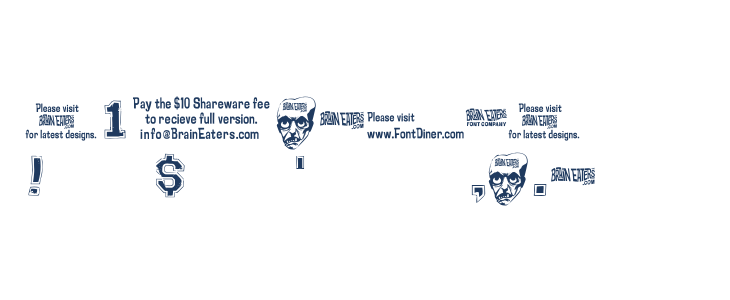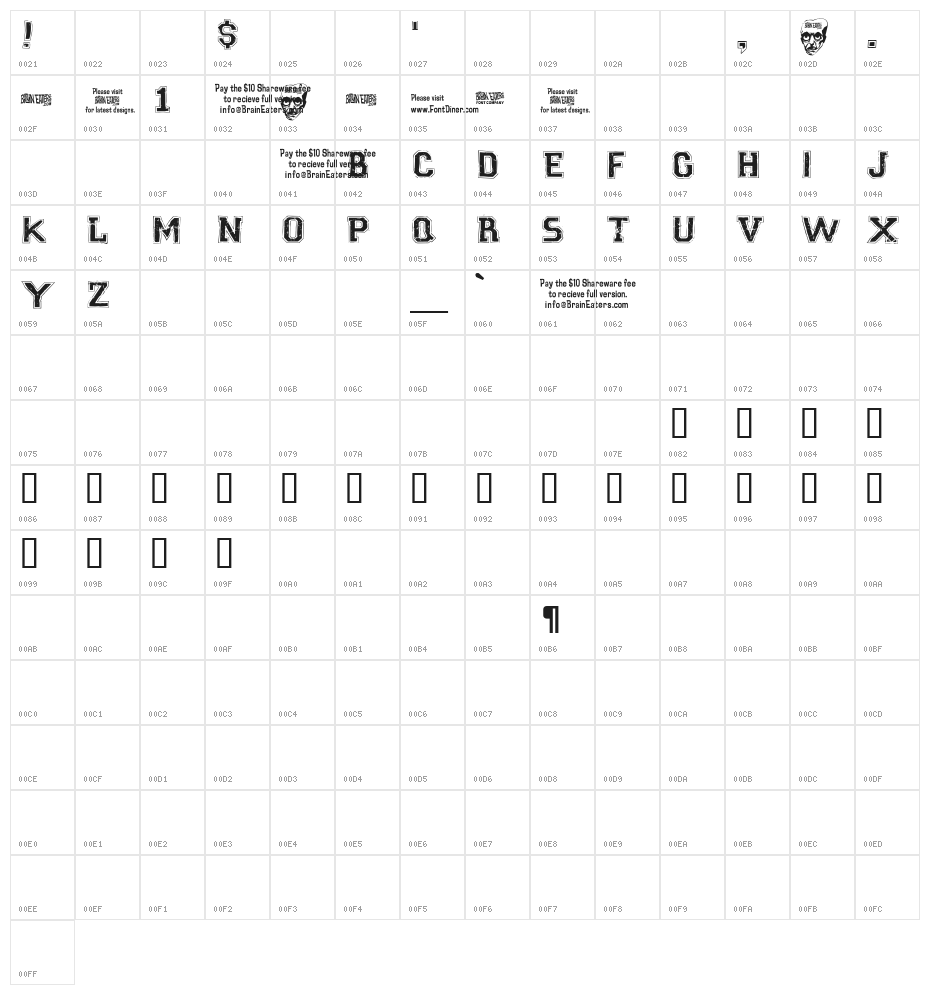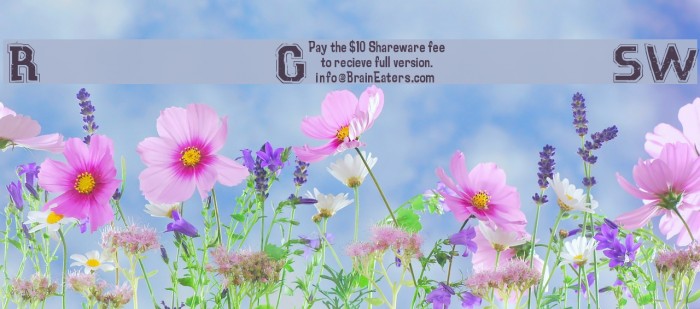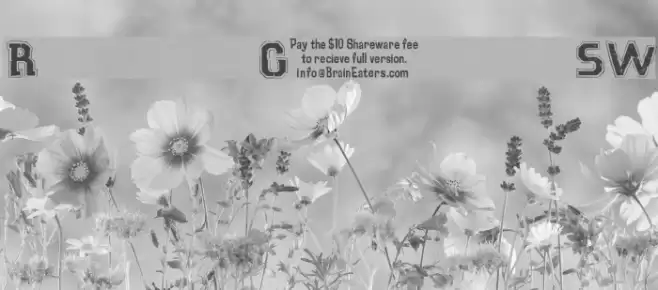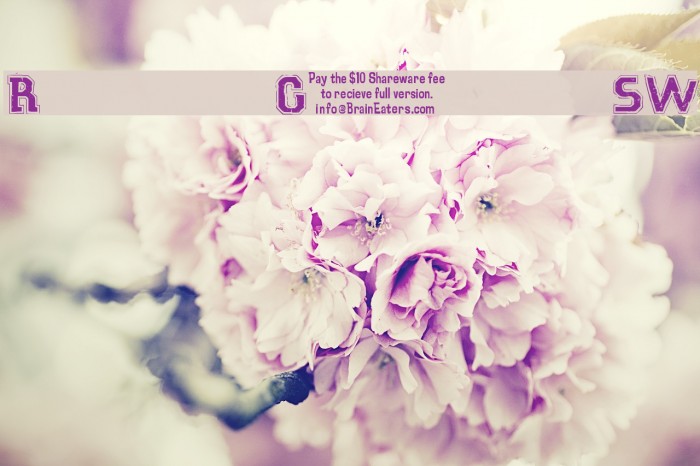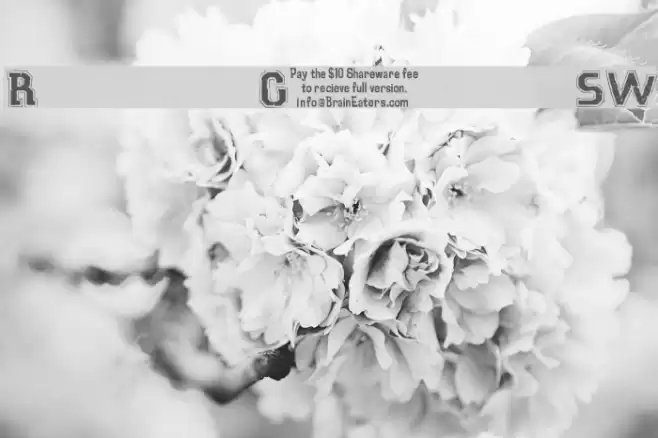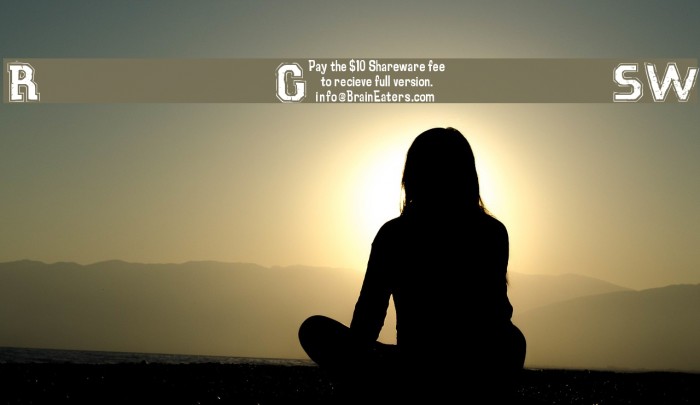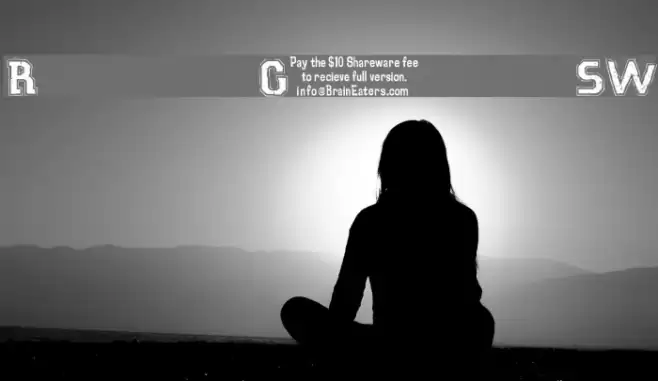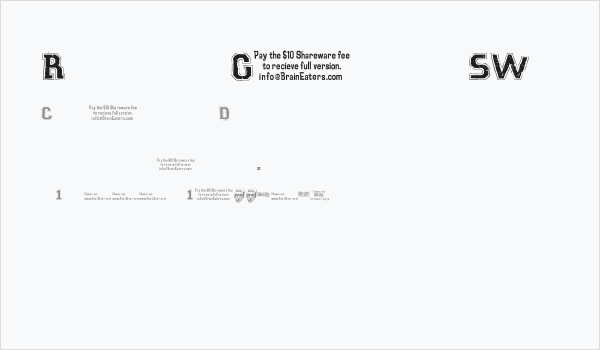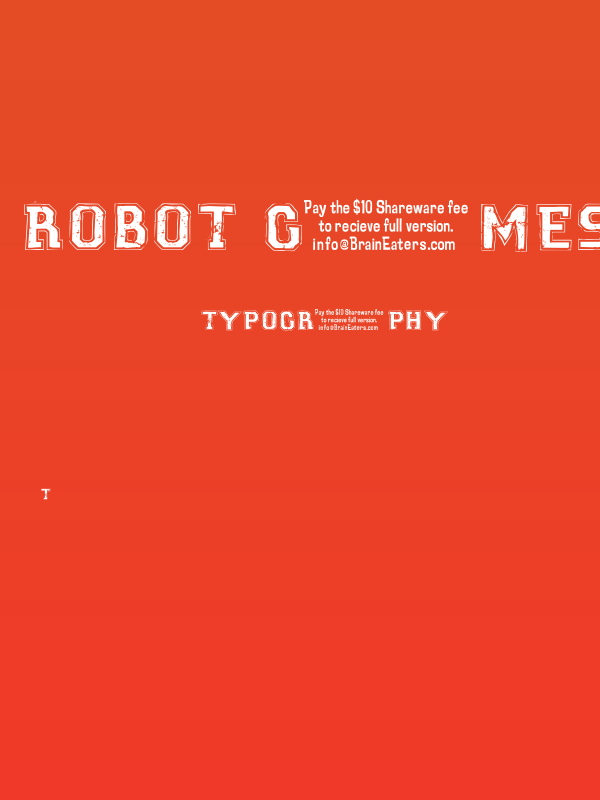
Robot GamesSW Font
Robot GamesSW Description
This font features a bold, distressed style with a vintage, industrial feel. The uppercase letters are prominent and have a rugged texture, giving them a worn, mechanical appearance. The characters are outlined with a thick border, enhancing their boldness and making them stand out. The font's unique design is reminiscent of old machinery or factory signage, making it ideal for projects that require a strong, impactful visual presence. The spacing between characters is normal, allowing for readability while maintaining its distinctive style.
Proposed ProjectsIdeal for posters, logos, and branding projects that require a strong, vintage industrial look.